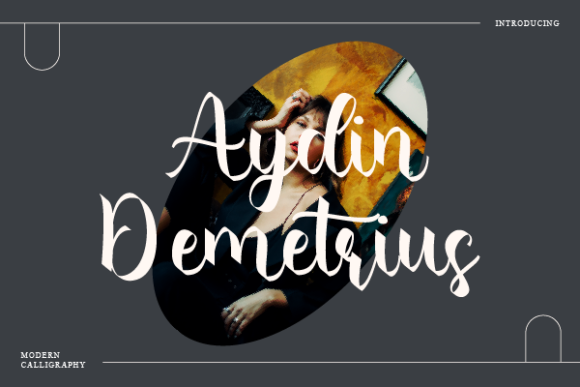
The Magical World of Aydin Demetrius Font
I’ll never forget the moment I stumbled upon the perfect font for my design project. I was working late, surrounded by empty coffee cups and crumpled up drafts, when I finally found Aydin Demetrius. It was like a breath of fresh air – elegant, whimsical, and utterly captivating. If you’re a designer, crafter, or creative hobbyist looking for a font that can elevate your work, you’re in the right place!
An Honest Review of Aydin Demetrius Font
- 💫 Elegant and sophisticated, perfect for high-end designs or DIY projects
- ✅ Highly versatile, suitable for various design applications, from Instagram posts to professional branding
- 🎨 Beautifully crafted with a touch of magic, adding a unique flair to any design
- 📚 Extensive character set, including OpenType features, glyphs, and stylistic alternates
While Aydin Demetrius is an exceptional font, there are a few minor limitations to consider:
- 🤔 May not be the best choice for very small font sizes, as some details might get lost
- ⚠️ Limited availability of language support, so double-check compatibility before use
The Story Behind Aydin Demetrius Font
The story of Aydin Demetrius begins with a passionate designer who sought to create a font that would bring a touch of magic to everyday designs. Inspired by the beauty of calligraphy and the world of fantasy, Aydin Demetrius was carefully crafted to evoke a sense of wonder and enchantment. Whether you’re a designer, crafter, or creative hobbyist, this font is sure to spark your imagination.
Q: What is Aydin Demetrius font best used for?
A: Aydin Demetrius is highly versatile and can be used for various design applications, from Instagram posts to professional branding, and even DIY projects.